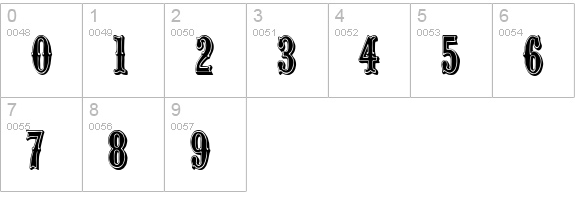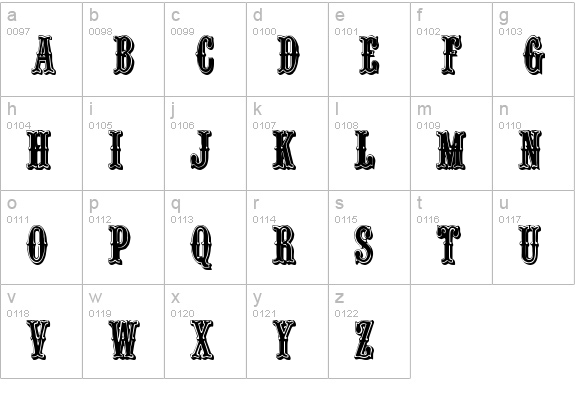
QuentinCaps Font Details
Introducing QuentinCaps, a captivating and stylish font that exudes an air of sophistication and elegance. With its beautifully crafted letterforms and exquisite attention to detail, QuentinCaps is the perfect choice for those seeking a font that effortlessly elevates any design project. The distinct and refined characters of QuentinCaps are meticulously designed to create a harmonious balance between classic elegance and contemporary flair. Each letter is adorned with delicate curves and graceful lines, allowing for a seamless flow and a captivating visual experience. But what sets QuentinCaps apart is not just its remarkable aesthetics. This font is not only aesthetically pleasing but also incredibly versatile, making it suitable for a wide range of design applications. Whether you're working on branding, editorial design, invitations, or any other creative endeavor, QuentinCaps will effortlessly enhance and elevate your work. And the best part? QuentinCaps is available for free download at FontsMarket.com. With just a few clicks, you can access this exquisite font and unleash your creativity without any cost. FontsMarket.com provides a convenient and user-friendly platform that allows designers, enthusiasts, and creatives to freely access QuentinCaps and countless other exceptional fonts. So, why settle for anything less when you can have QuentinCaps – a font that combines timeless elegance, contemporary sophistication, and the freedom to create without limits? Download QuentinCaps today and embark on a design journey filled with seamless beauty and boundless creativity.